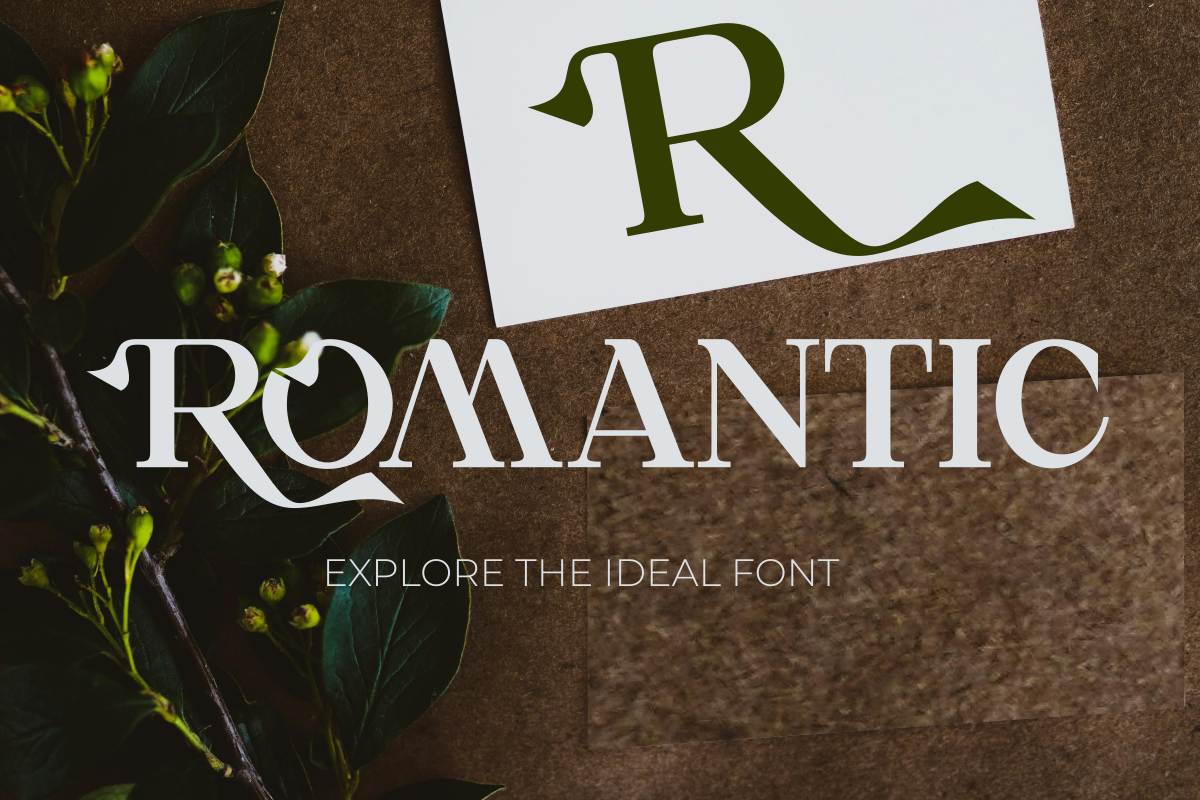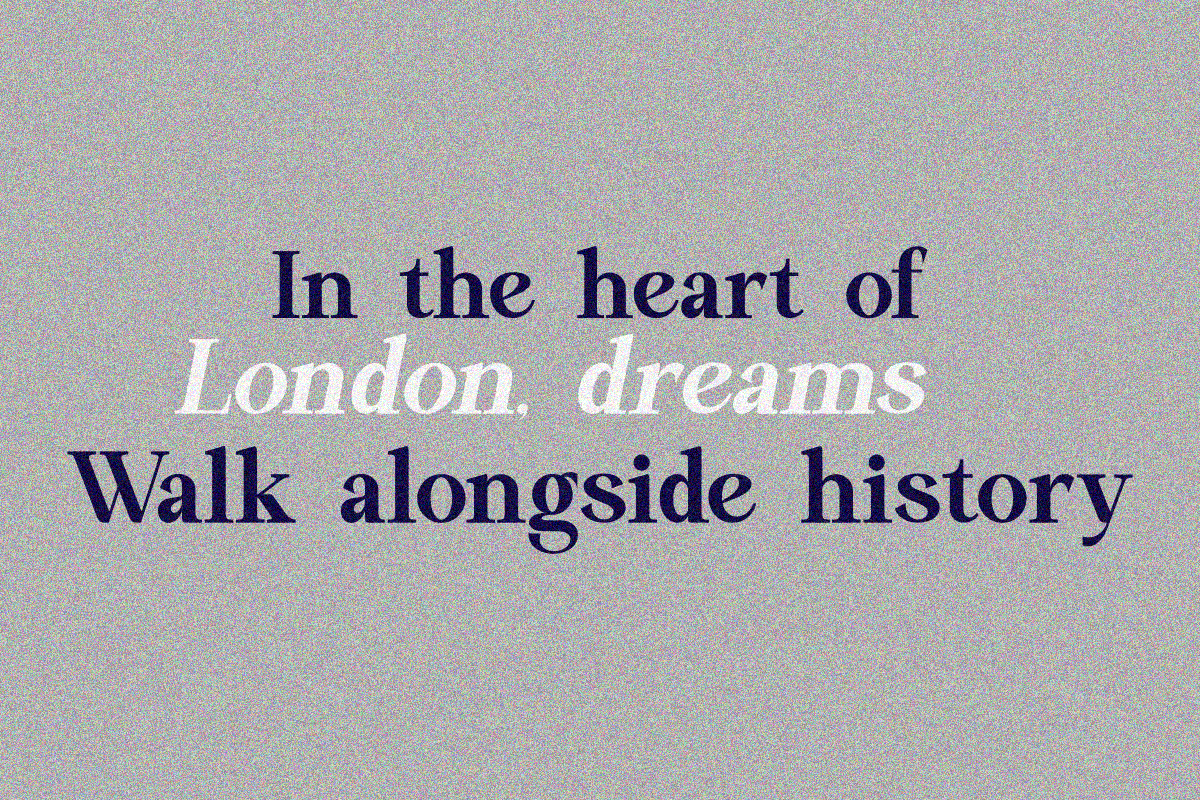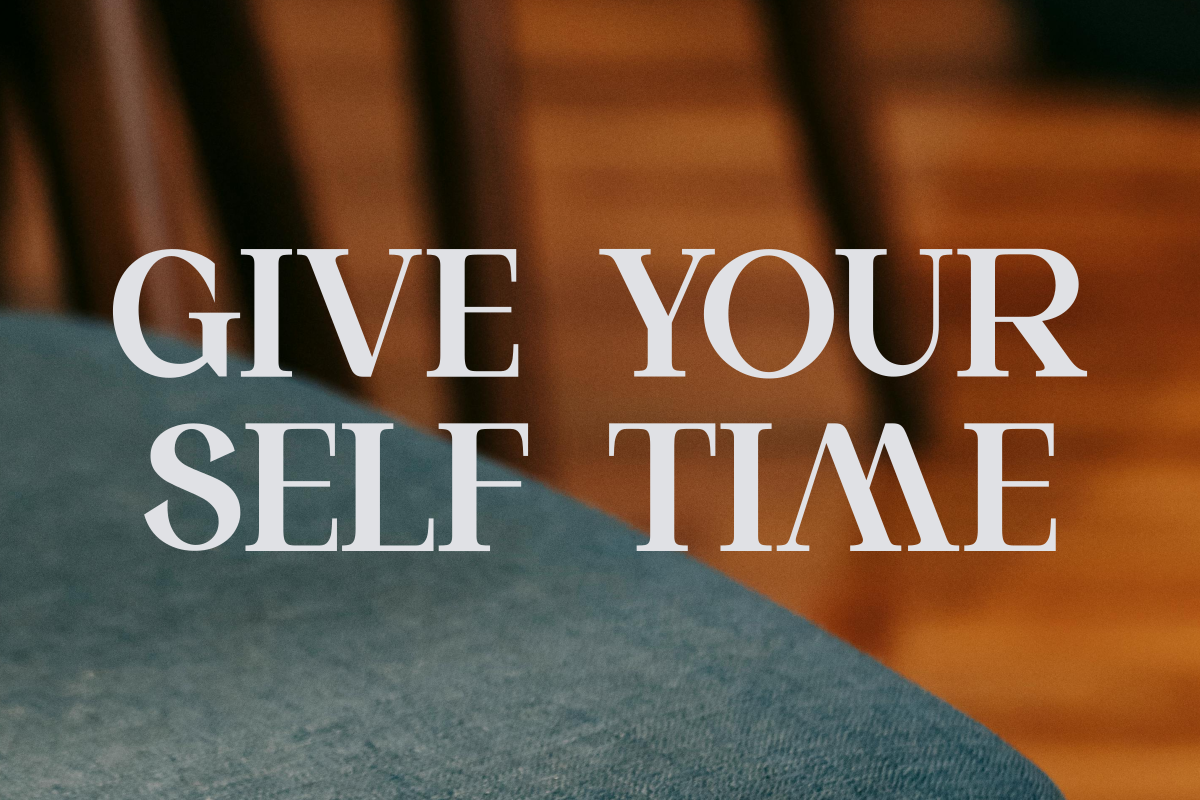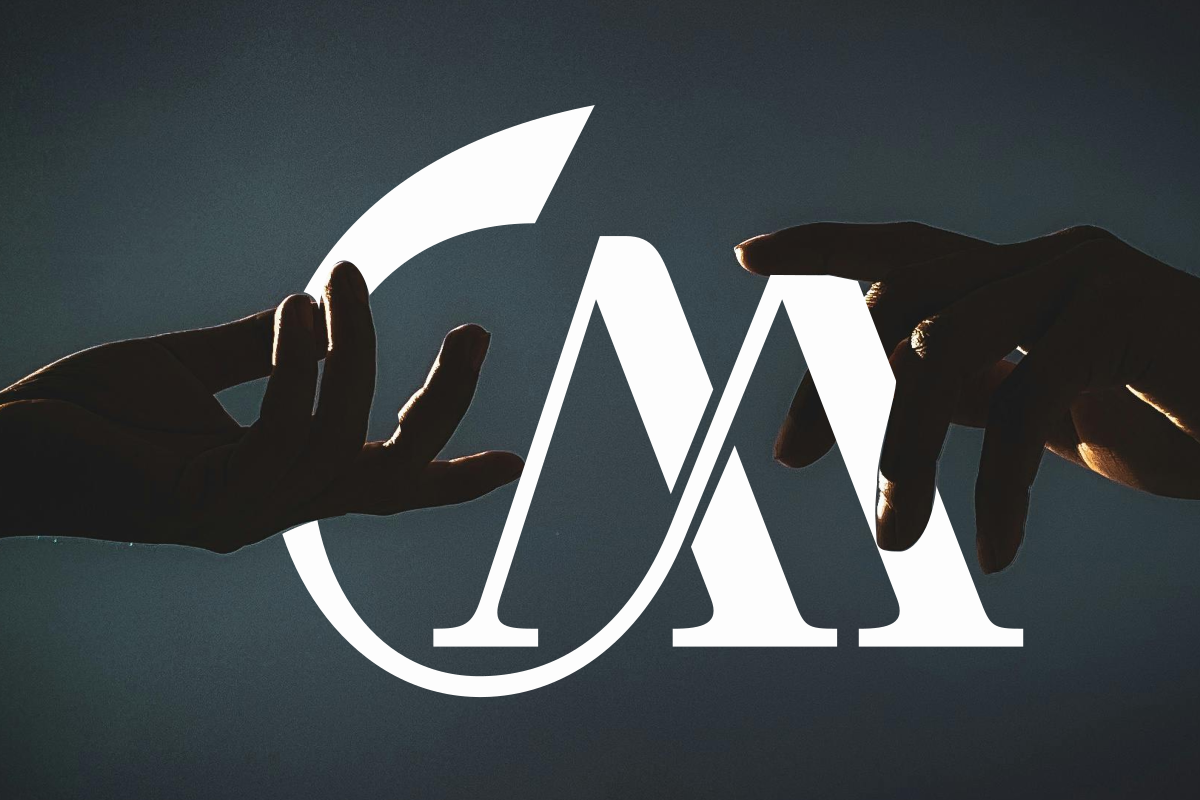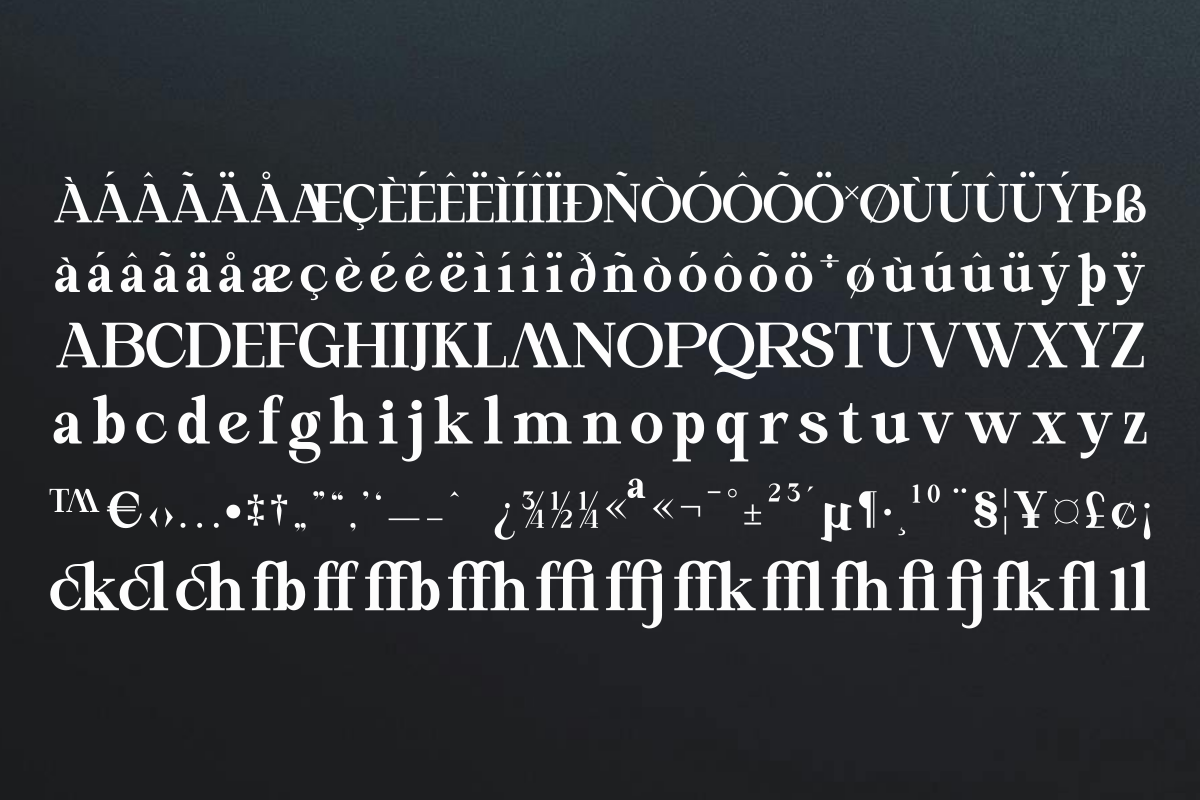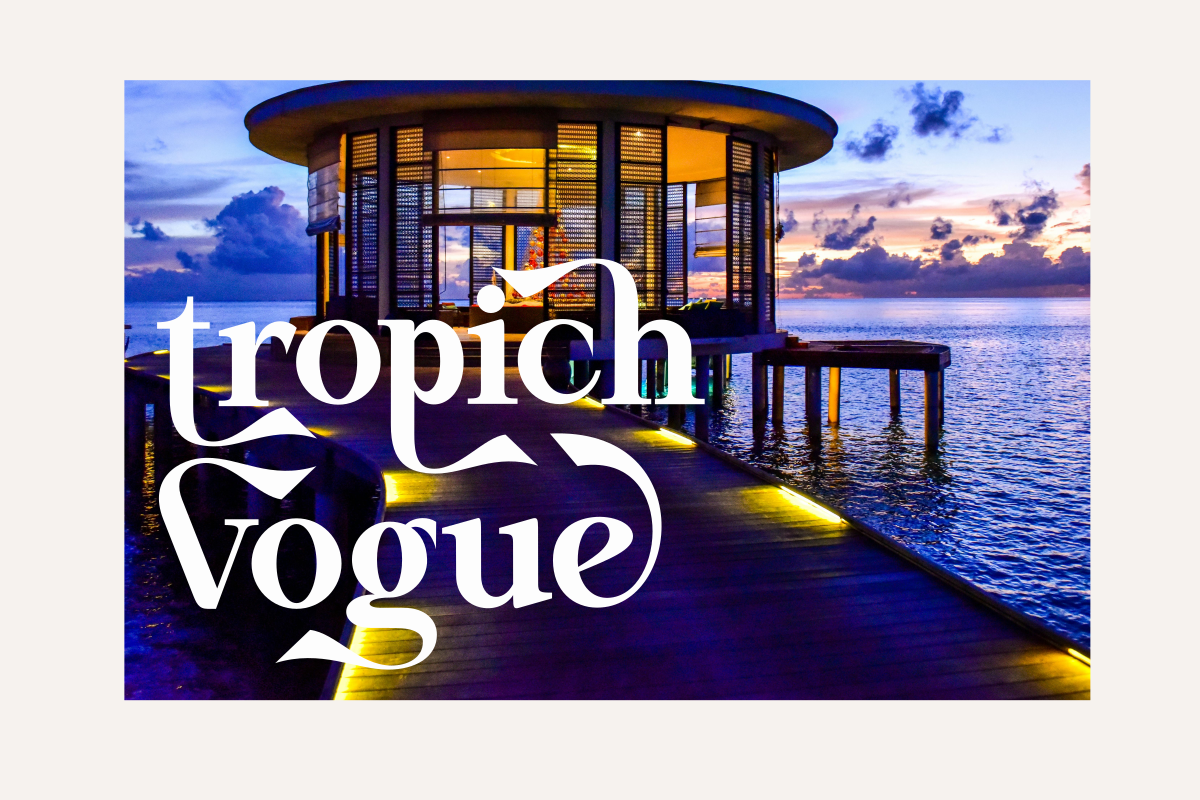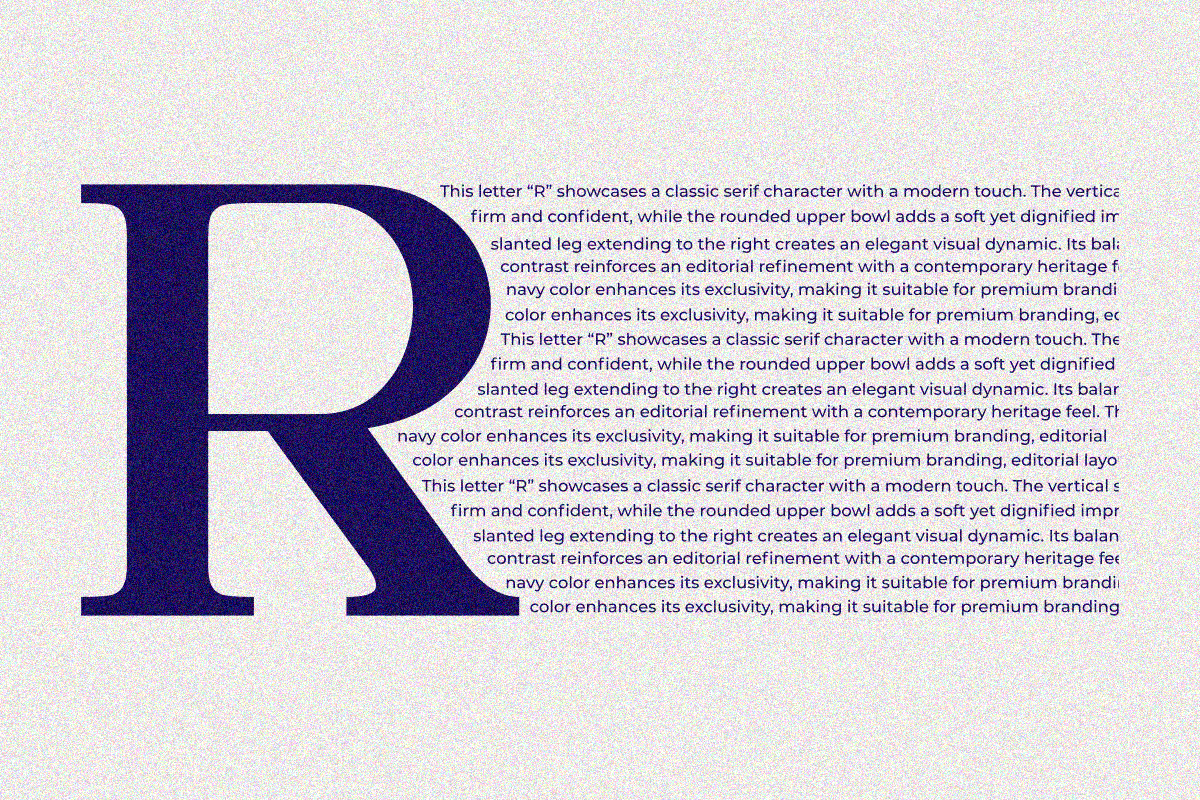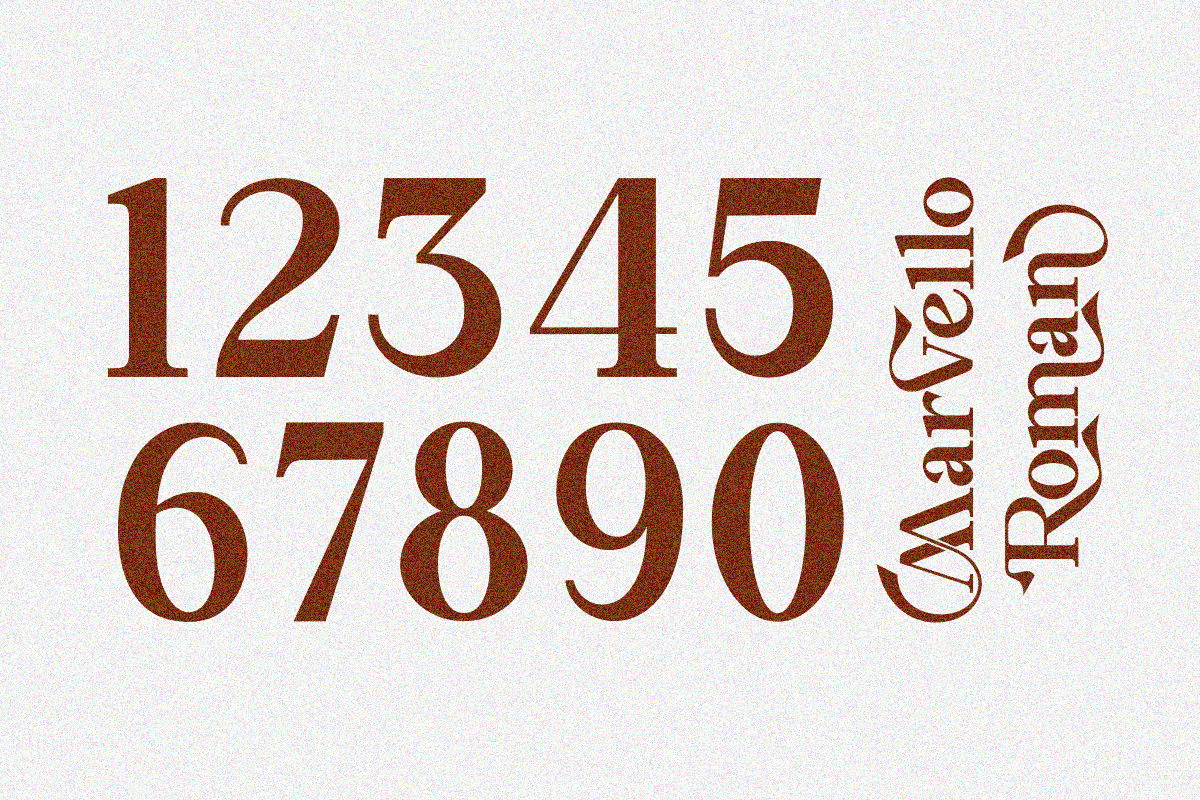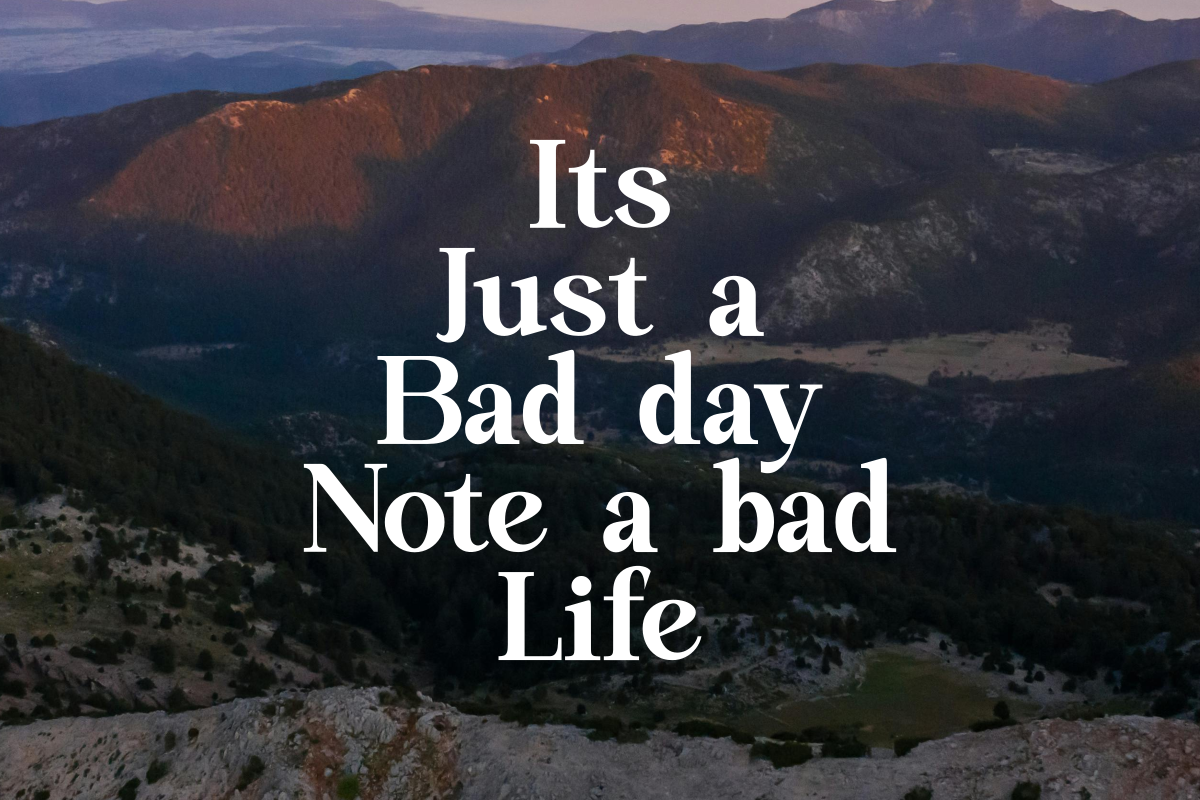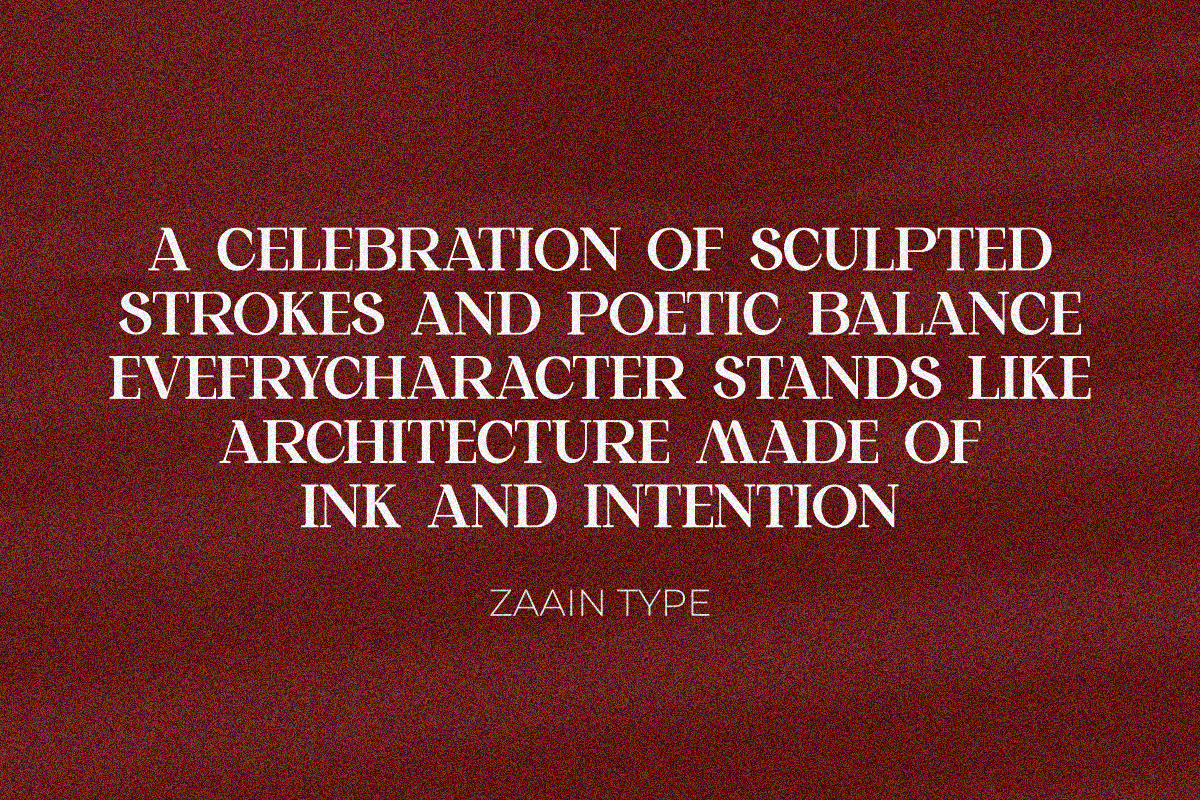
Marvello Roman
Marvello Roman is a serif typeface that blends classic elegance with a refined modern touch. Built with balanced letter structures, subtle thick–thin contrast, and sharp yet clean serif details, Marvello Roman delivers a strong, luxurious editorial presence.
Its characters are designed to offer excellent readability while remaining visually expressive, making it an ideal choice for magazines, premium branding, book titles, fashion, and visual identities that demand an elegant and confident tone. Marvello Roman represents a timeless Roman style—bold, sophisticated, and full of character—ready to elevate the visual voice of any design